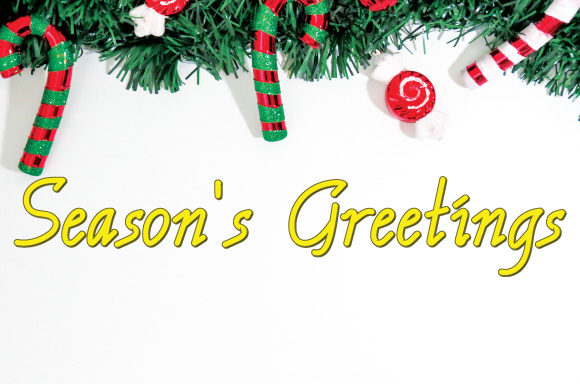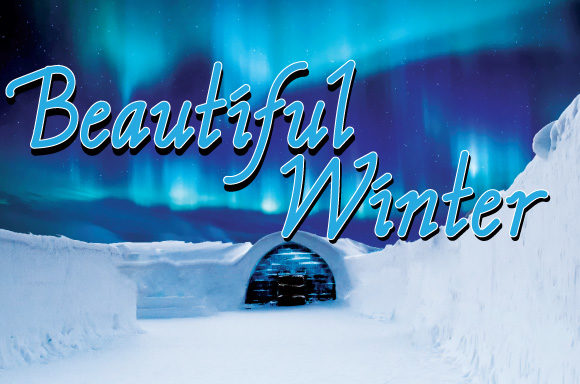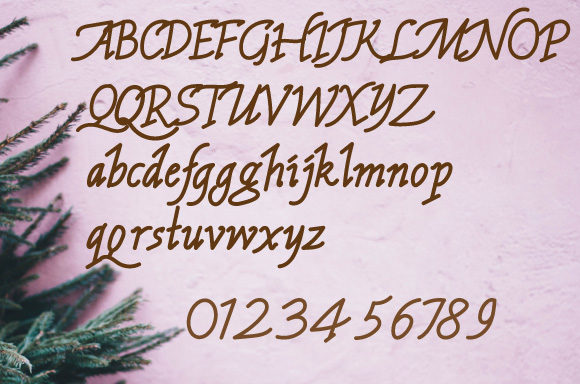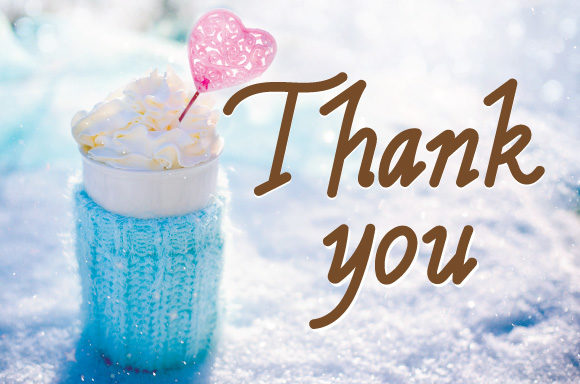
Snowman Font
About Snowman Font
Snowman is a neat and balanced handwritten font. Add it to your most creative ideas and notice how it makes them come alive!